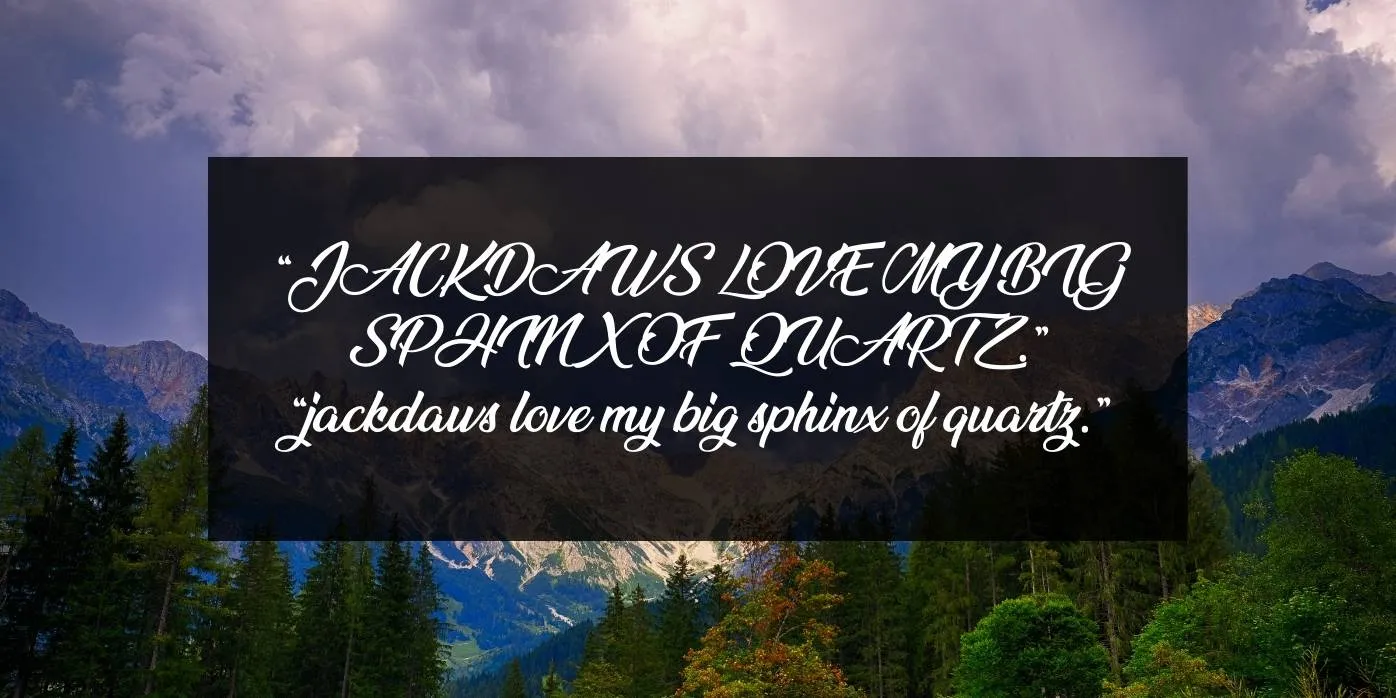
Ananda Font
Today, we present Ananda Font which belongs to the script family, This typeface was developed by Billy Argel. The main aim of this typeface is to provide a unique, stylish, and modern look to the text. This typeface supports both Latin and Cyrillic languages. This typeface comes in two styles, Regular and Bold.
Each style contains more than 1000 glyphs. Ananda Typeface supports all major operating systems including Windows, Linux, and Mac. You can also use it for CSS and SVG. Another similar font which is sophia font is perfect for different designs.
Ananda Typeface provides an elegant look to the text. It is perfect for creating stylish documents or website designs. So if you are looking for a unique and stylish font for your next project, then Ananda Font is the perfect choice for you. You can also utilize its generator tool.